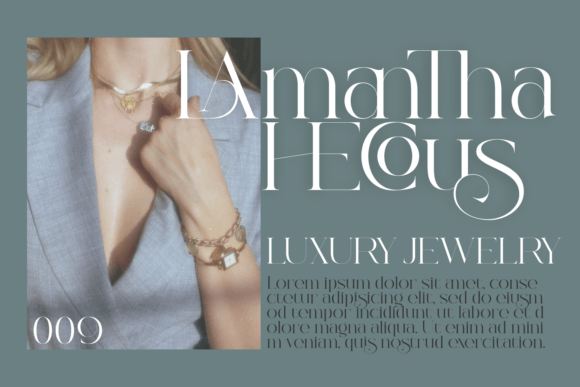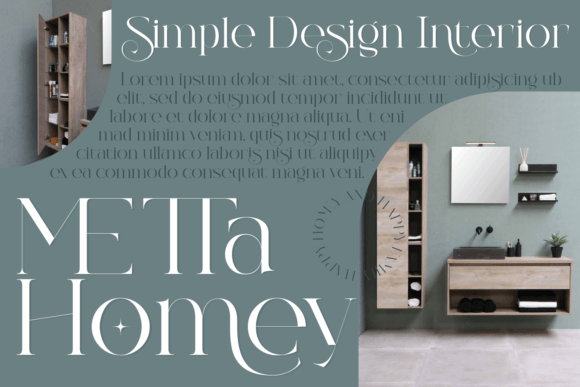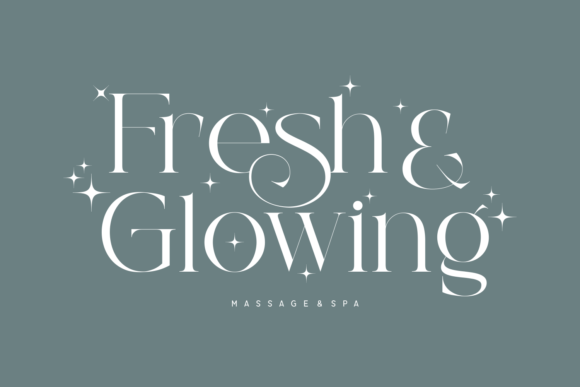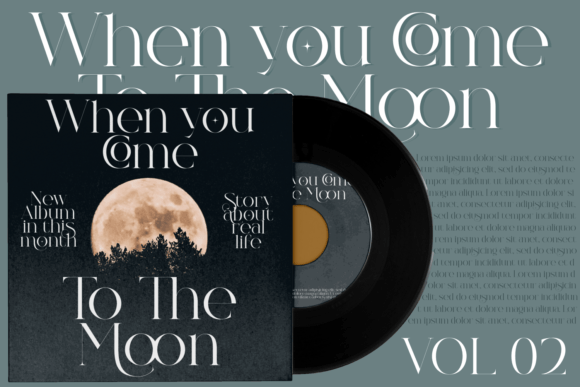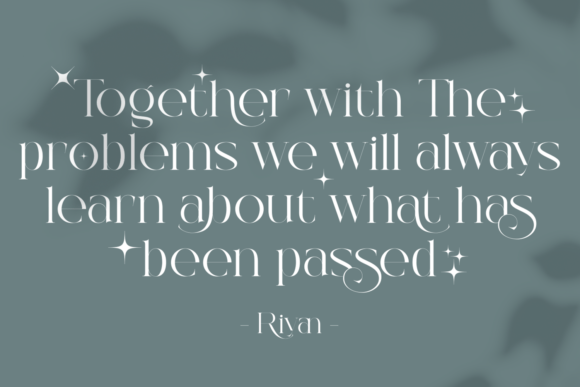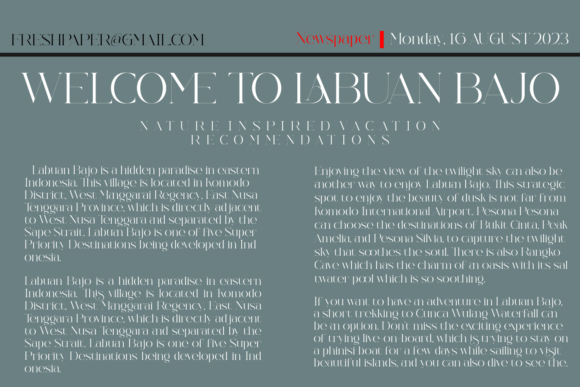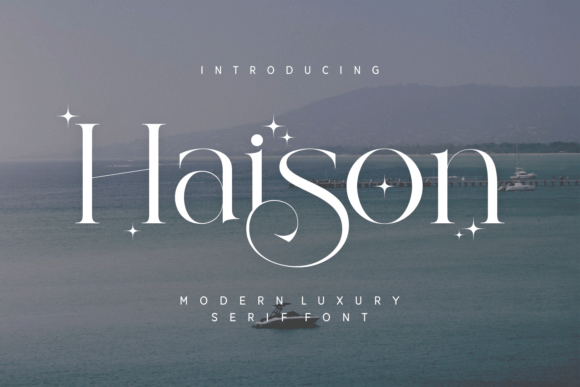
Haison Font: Elevate Your Designs with Sophistication and Luxury
In the world of typography, a font can make or break a design. For designers, crafters, and DIY enthusiasts, finding the perfect font can be a daunting task. However, if you’re looking for a sophisticated and luxurious serif font that can elevate your creative projects, look no further than Haison Font. In this article, we’ll explore the features and benefits of Haison Font, and how it can turn any creative idea into a true piece of art.
The Elegance of Haison Font
Haison Font is a serif font that exudes elegance and sophistication. Its classic design makes it perfect for a wide range of applications, from Instagram posts to DIY projects. The font’s luxurious feel is sure to add a touch of refinement to any design, making it ideal for designers and crafters who want to create high-end visuals.
Key Features of Haison Font
- Sophisticated Design: Haison Font features a classic serif design that is both timeless and elegant.
- Luxurious Feel: The font’s luxurious feel makes it perfect for high-end designs and DIY projects.
- Versatile: Haison Font can be used for a wide range of applications, from social media posts to print materials.
- Easy to Read: The font’s clear and legible design makes it easy to read, even at small sizes.
Using Haison Font for Instagram
In today’s digital age, Instagram is a crucial platform for designers and crafters to showcase their work. With Haison Font, you can create stunning Instagram posts that are sure to grab the attention of your followers. Whether you’re promoting a new product or sharing a behind-the-scenes look at your design process, Haison Font is the perfect choice.
Using Haison Font for DIY Projects
For DIY enthusiasts, Haison Font is a game-changer. Whether you’re creating signs, banners, or other materials, this font is sure to add a touch of sophistication to your projects. With Haison Font, you can turn your DIY projects into true pieces of art that showcase your creativity and skill.
Tips for Using Haison Font
- Pair with Other Fonts: Haison Font pairs well with other fonts, making it easy to create visually appealing combinations.
- Experiment with Colors: The font’s luxurious feel makes it perfect for use with a wide range of colors and textures.
- Use for Headings and Titles: Haison Font is perfect for use as headings and titles, adding a touch of sophistication to any design.
In conclusion, Haison Font is a sophisticated and luxurious serif font that is perfect for designers, crafters, and DIY enthusiasts. With its classic design and luxurious feel, this font is sure to elevate any creative project into a true piece of art. Whether you’re looking for fonts for Instagram or exquisite fonts for DIY projects, Haison Font is the perfect choice.